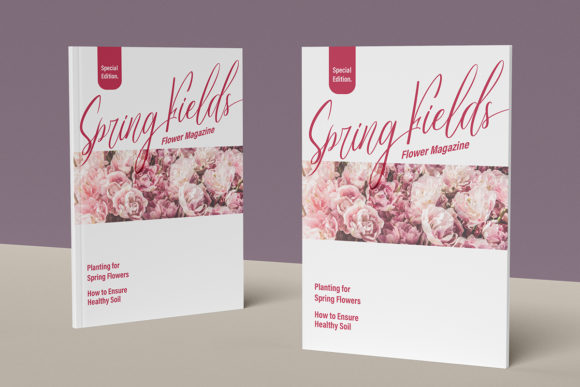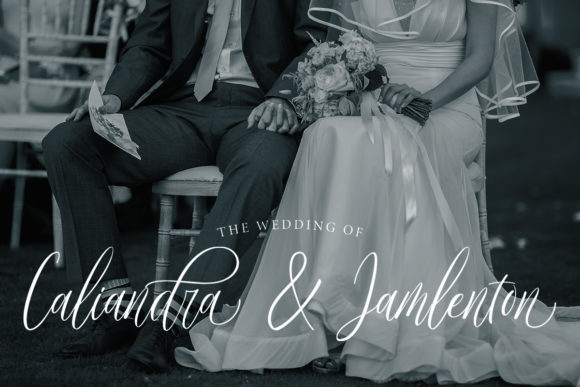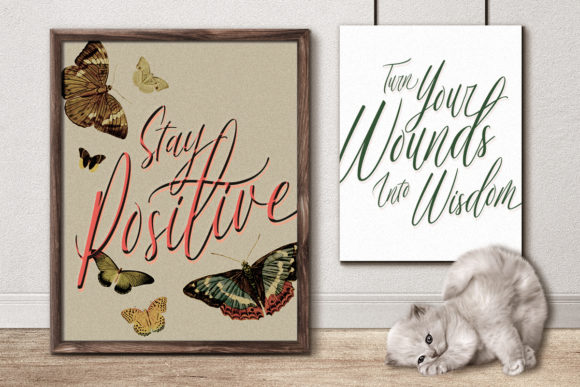
Introduction to Rimeland Font
Have you ever found yourself in a creative moment, surrounded by endless possibilities, yet struggling to find the perfect font to elevate your design? I’m sure many designers can relate to this feeling. For me, it was the day I stumbled upon the stunning Rimeland Font. Its luxurious and modern calligraphy style instantly caught my eye, and I knew I had to learn more.
As a designer, you understand the importance of a high-quality font that can make your creative project stand out. That’s where Rimeland Font comes in – a valuable design resource that’s perfect for a variety of designs, from wedding invitations to logos. With its transparent background and sleek lines, Rimeland Font is sure to add a touch of sophistication to any design. And the best part? It’s available for free download, making it an accessible design tool for designers of all levels.
Honest Review: Rimeland Font
I recently had the chance to work with the Rimeland Font, and I must say, it’s been a game-changer for my creative projects. The high-quality design resource offers a lot of versatility and is a great addition to any design toolbox.
What works well: ✨ The font is incredibly easy to use, and the transparent background makes it perfect for adding text overlays to images or videos. The font also comes in a range of weights and styles, giving you plenty of options to choose from. Additionally, the free download option is a great bonus for designers on a budget.
However, there are a few limitations: ⚠️ The font may not be suitable for use in certain creative projects, such as print design, due to its digital nature. Additionally, some users may find the font to be a bit too minimalist, which may not appeal to those who prefer a more ornate or elaborate font style.
Overall, I’m thoroughly impressed with the Rimeland Font. It’s a high-quality design resource that’s perfect for designers working on digital projects. I highly recommend it to anyone looking for a reliable and versatile font.
To get the most out of Rimeland Font, make sure to use it on a transparent background to achieve a clean and professional look. You can also experiment with different font sizes, colors, and styles to create unique and eye-catching designs.
Rimeland Font is commonly used in creative projects such as logos, business cards, brochures, and social media graphics. Its high-quality design and transparent background make it an ideal choice for designers and non-designers alike.